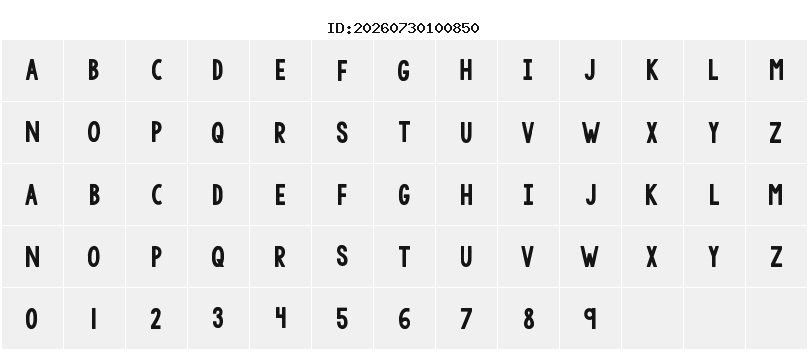
KG Tangled Up In You 2 Preview
• Font Name: KG Tangled Up In You 2
• Designer: Kimberly Geswein
About KG Tangled Up In You 2.ttf
KG Tangled Up In You 2.ttf is a modern, elegant sans-serif font designed for ultimate readability and visual harmony. Perfect for branding, headlines, web design, and print materials.